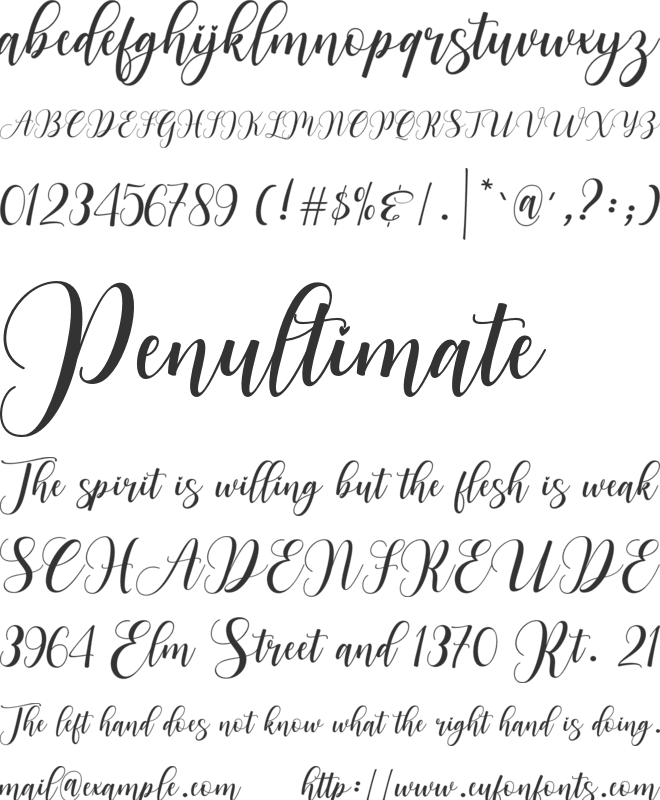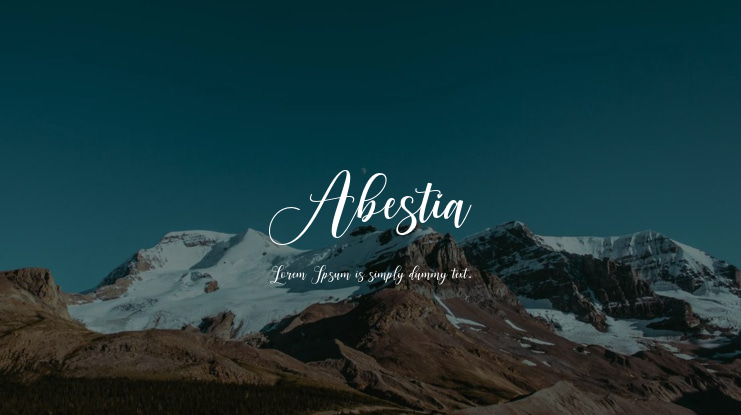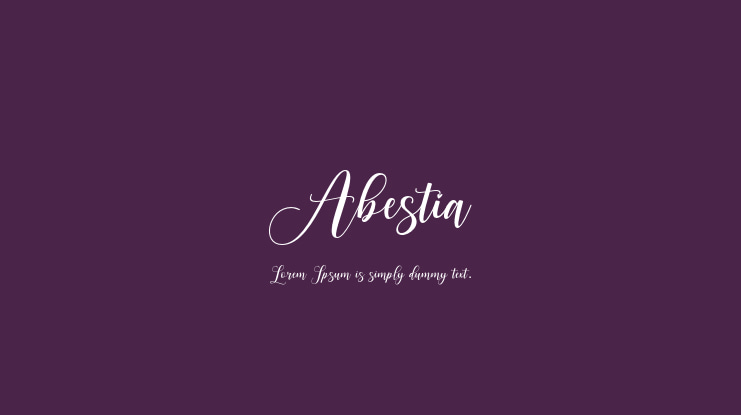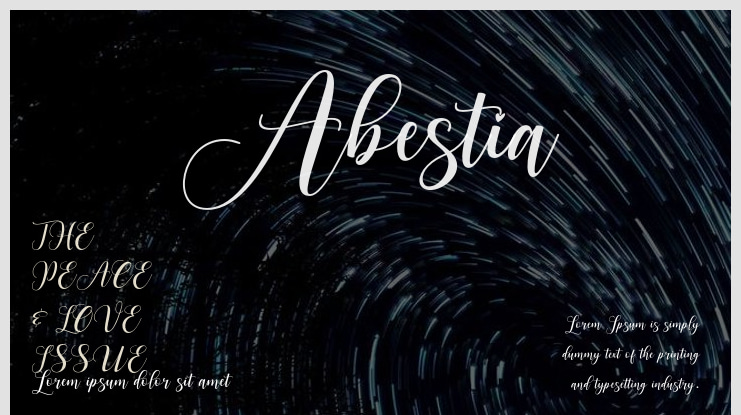
Abestia Font
Muhammad Nasir
Abestia is a beautiful calligraphy font designed for expressing romance, blending elegant swirls and smooth lines to embody the everlasting charm of love. Its intricate curves and embellishments create a poetic touch, ideal for crafting love notes, wedding invites, or any moment that requires heartfelt expression. Every letter is imbued with a lively flair, turning each word into a masterpiece that resonates deeply with the soul.
Abestia font preview